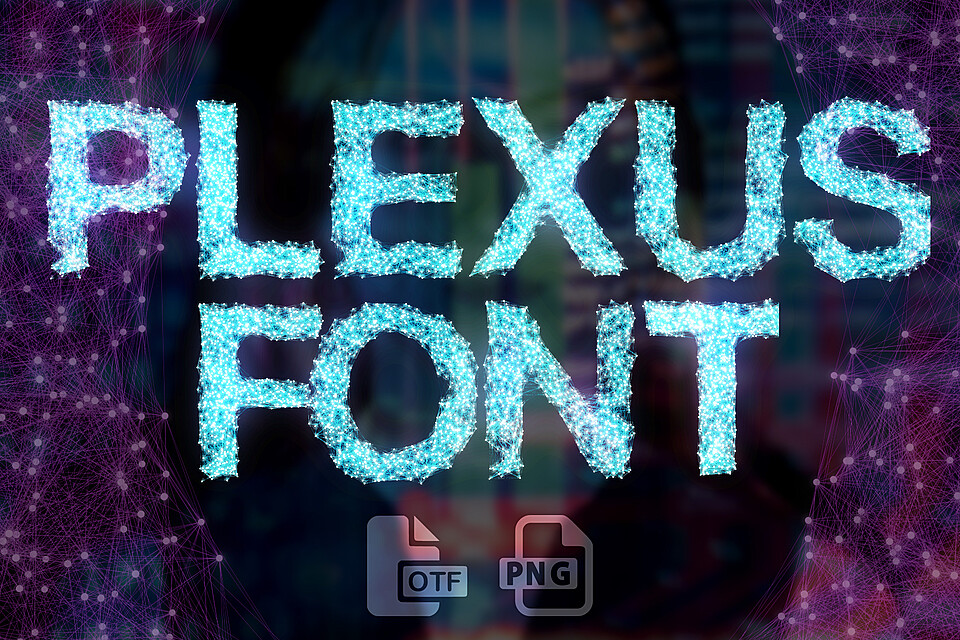
MS Plexus Font - Opentype SVG Color Font and PNG Files
Each letter is modelled and rendered in a 3D Application, also converted into an Opentype SVG (Color Font)
Basic western uppercase letters
Numbers
Basic Punctuation and Symbols